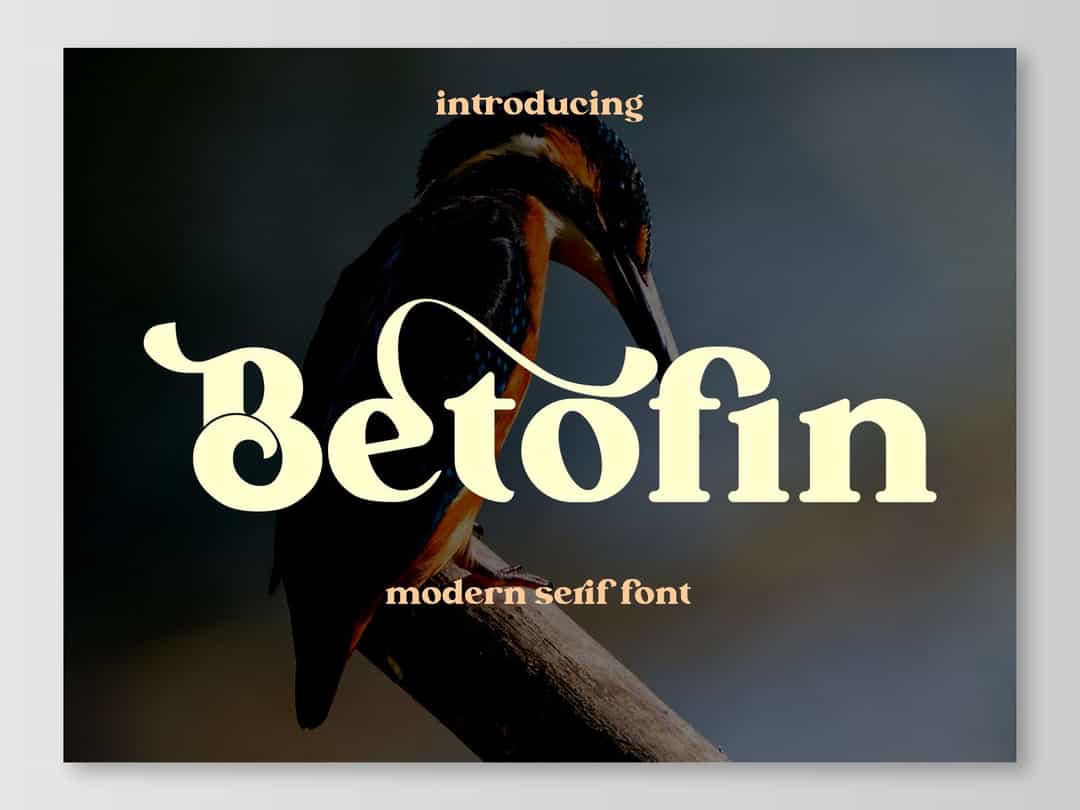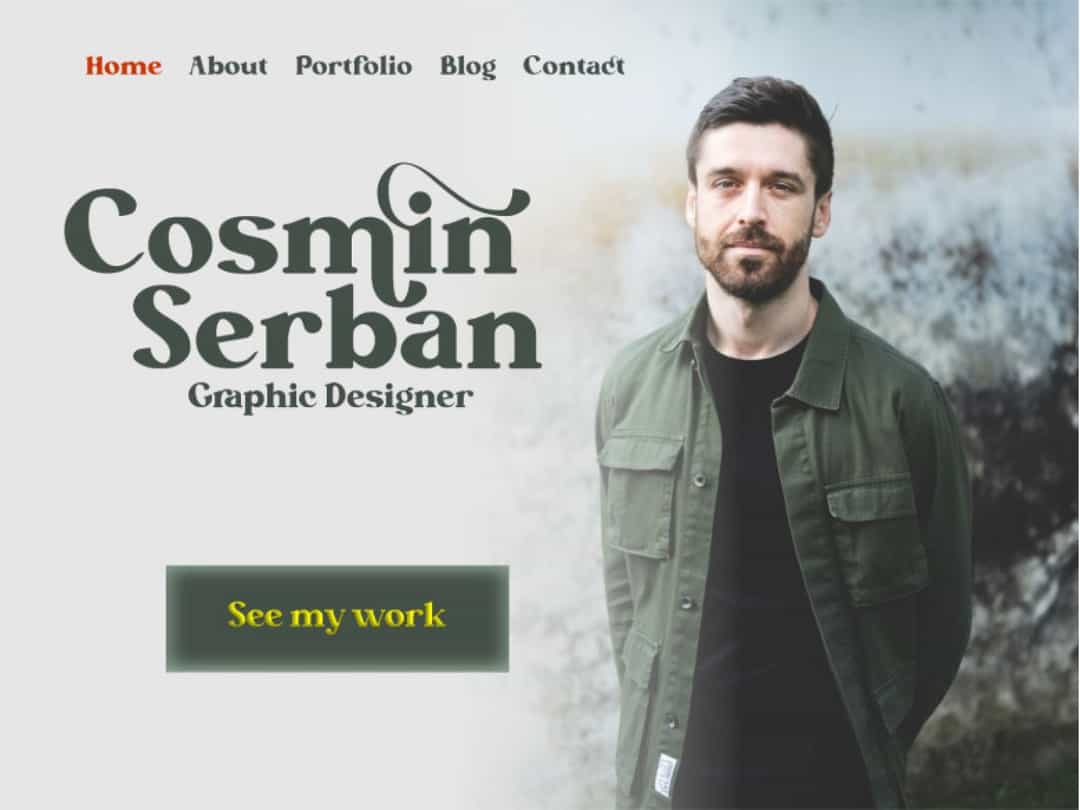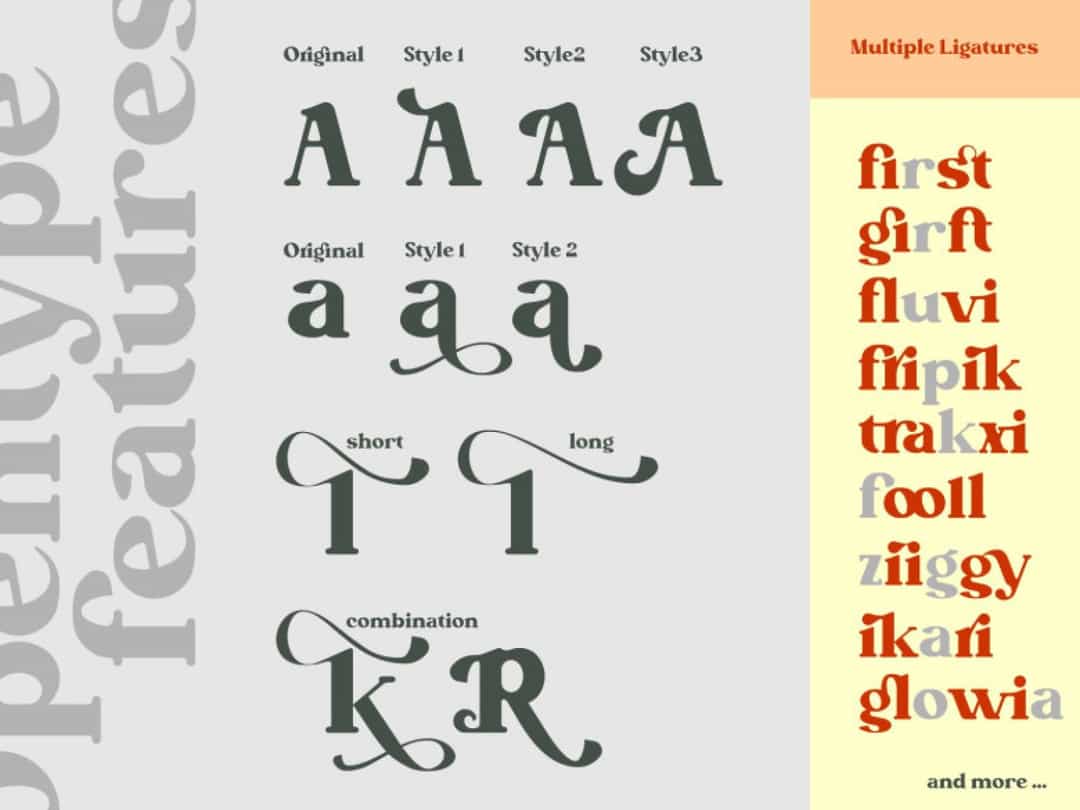
Betofin is an elegant serif font with a prominent contrast of thick and thin lines, small serifs, a vertical pressure applied to letters, and also the font is enriched with all the Open Type features such as tail alternates, ligatures, swashes, and swashes.